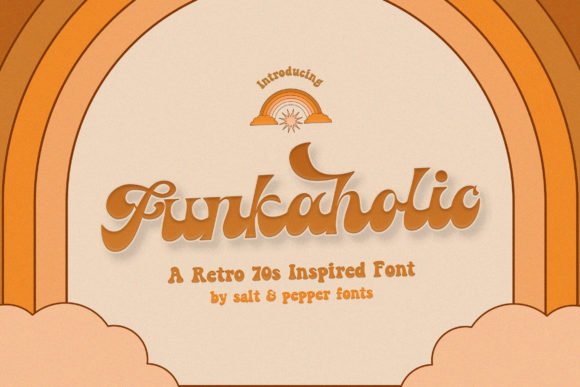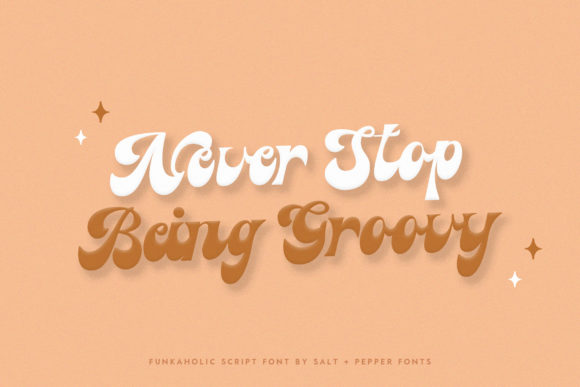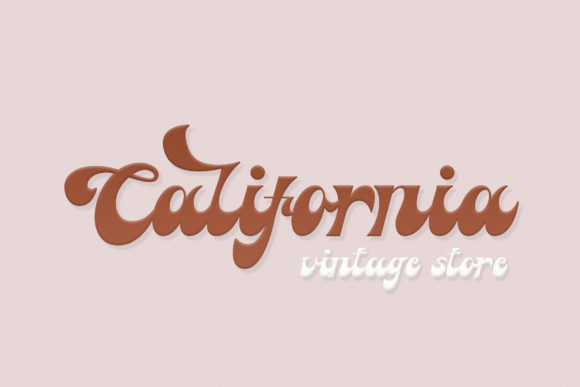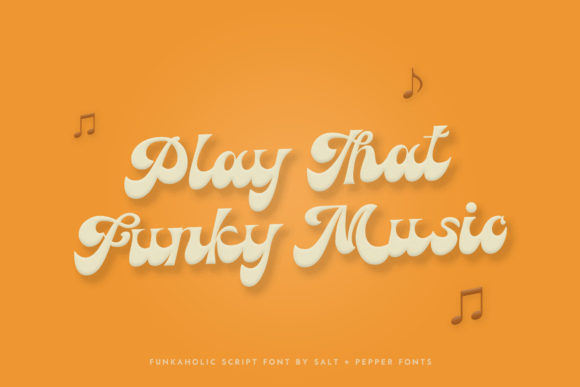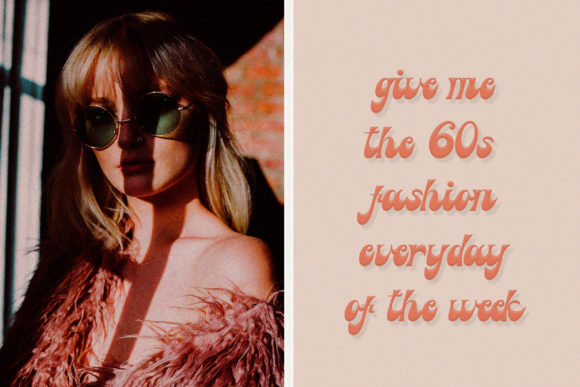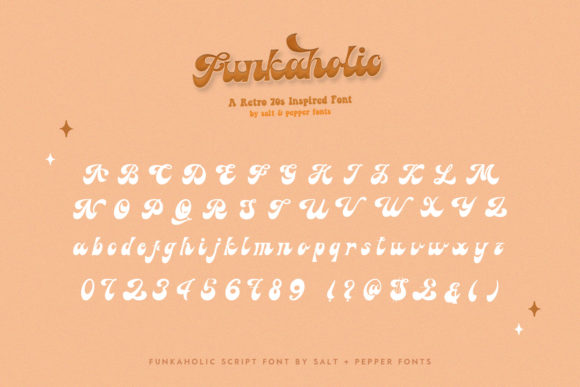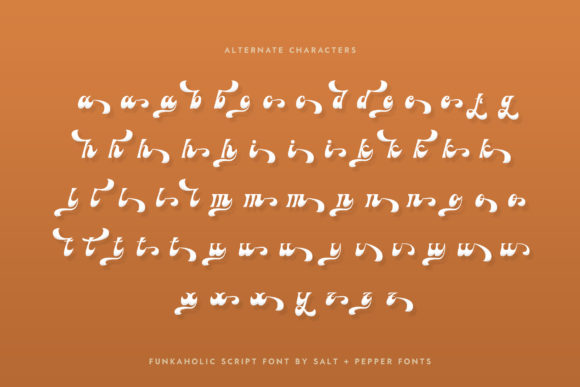
The Groovy Revival of Typography: Introducing Funkaholic Font
Have you ever stumbled upon an old vinyl record or a vintage poster, and instantly felt the rush of nostalgia and creative inspiration? That’s exactly what happened to us when we first laid eyes on the Funkaholic Font.
This gorgeous and bold display font is specifically crafted to transport your designs back to the funky era of the 70s and 80s, giving your headlines and logotype projects a retro touch that’s impossible to resist. With its strong, confident, and dynamic vibe, Funkaholic Font is the perfect addition to any designer’s toolkit.
Whether you’re a seasoned pro or a budding creative, Funkaholic Font is a valuable asset that will elevate your designs and help you tap into the nostalgia of a bygone era. Its PUA encoding means you can access all glyphs and swashes with ease, making it a must-have for any designer looking to add a touch of funk to their work.
Funkaholic Font Key Features
- Unique Characteristics: Funkaholic Font features a bold, energetic script style with a mix of modern and vintage elements, making it ideal for music, art, and fashion-related designs.
- Font Style: Casual, Script, Display
Funkaholic Font Review
I recently had the chance to work with the Funkaholic Font, and I must say it’s been an interesting experience. Here’s my honest take on this funky font.
- Unique style: Funkaholic Font truly stands out from the crowd with its bold, psychedelic vibes.
- Perfect for eye-catching headlines: The font’s boldness makes it ideal for grabbing attention in headings and titles.
- Readability issues: At smaller font sizes, the font can become difficult to read due to its complex design.
- Limited legibility in body text: Funkaholic Font is best suited for headlines and titles; using it for body text can lead to readability problems.
Overall, Funkaholic Font is a great choice for making a statement with your typography. However, it’s essential to use it judiciously and be aware of its limitations. If you’re looking for a bold, eye-catching font for your next project, Funkaholic Font might be just what you need. But for body text and everyday use, you might want to consider a more readable option.
Funkaholic Font: A Practical Application Guide
For best results, use Funkaholic Font in conjunction with bold and italic styles to add depth and emphasis to your text.
For more advanced users, you can also use Funkaholic Font in conjunction with layer styles and effects to create unique and eye-catching text elements.
For best results, use Funkaholic Font in conjunction with bold and italic styles, as well as font sizes and colors, to create visually appealing text elements.
Funkaholic Font is ideal for use in music-related projects, such as album artwork, concert posters, and music festival branding.
It’s also great for use in fashion and lifestyle projects, such as clothing labels, product packaging, and advertising materials.
Overall, Funkaholic Font is a versatile and stylish font that can be used in a wide range of creative projects.